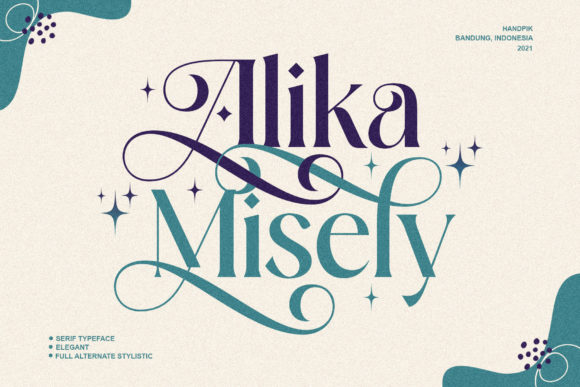
Introducing Alika Misely, the ultimate serif font that will elevate your designs and captivate your audience. Created by handpik, this font is meticulously crafted to bring a touch of class, femininity, and elegance to any project.
Alika Misely is the go-to choice for those seeking the best font for holiday cards. Its timeless and classic characters are wrapped with beautiful alternates, making every word a work of art. With this font, your holiday cards will stand out from the crowd, leaving a lasting impression on your loved ones.
But Alika Misely is not limited to holiday cards. Its versatility allows it to shine in a multitude of projects. From logos and branding to invitations, stationery, and even wedding designs, this font will add a touch of sophistication and refinement. Imagine the elegance it will bring to your social media posts, advertisements, and printed quotes. Your products will speak volumes with Alika Misely adorning their packaging and designs.
What sets Alika Misely apart is its PUA encoding, which grants you easy access to all the glyphs and swashes. You'll have endless possibilities at your fingertips, allowing you to create unique and personalized designs effortlessly. Let your creativity run wild with this font, and watch as your projects come to life.
Whether you're a photographer looking to watermark your stunning images, or an event planner organizing special occasions, Alika Misely will be your trusted companion. Its versatility knows no bounds, and it adapts seamlessly to any design or event.
Don't settle for mediocre fonts that fail to captivate your audience. Alika Misely is here to elevate your designs and leave a lasting impression. Its classic, feminine, and elegant characters will draw your viewers in, evoking emotions and creating a connection. Be prepared to receive compliments and inquiries about the font you used, as Alika Misely is bound to leave a lasting impression.
In conclusion, Alika Misely is the perfect serif font for all your design needs. Its versatility, elegance, and captivating nature make it the ideal choice for holiday cards, branding, invitations, and so much more. Unlock the full potential of your designs with Alika Misely and create a visual masterpiece that will leave a lasting impression on your audience.